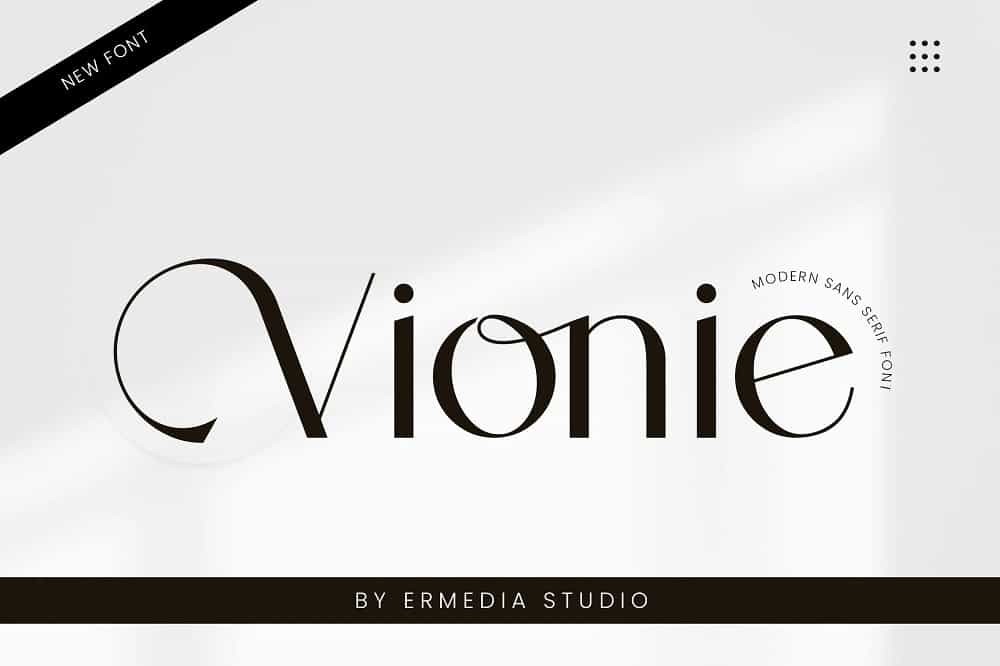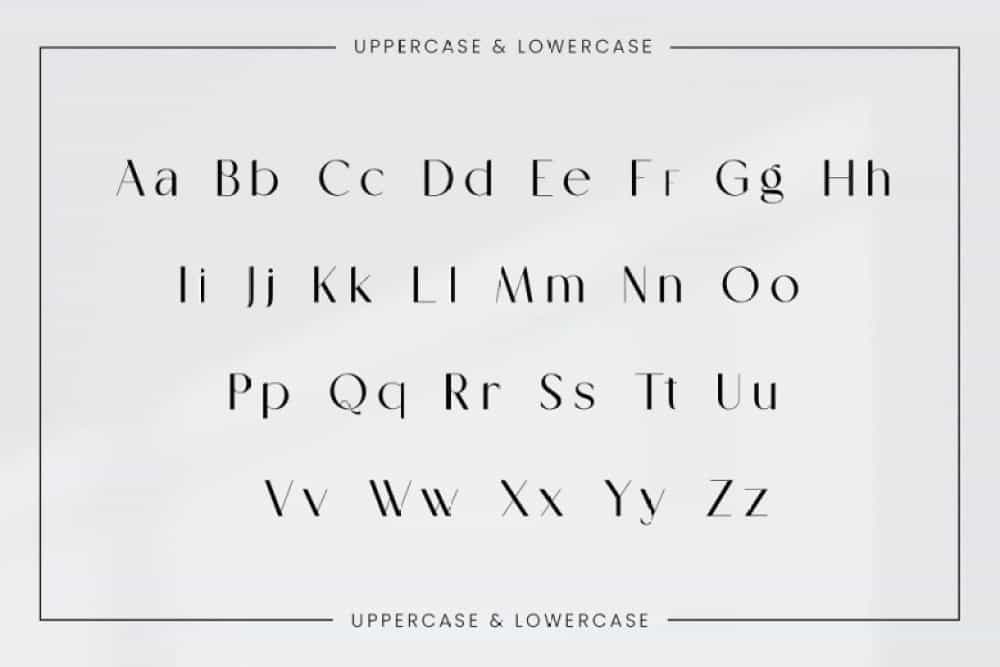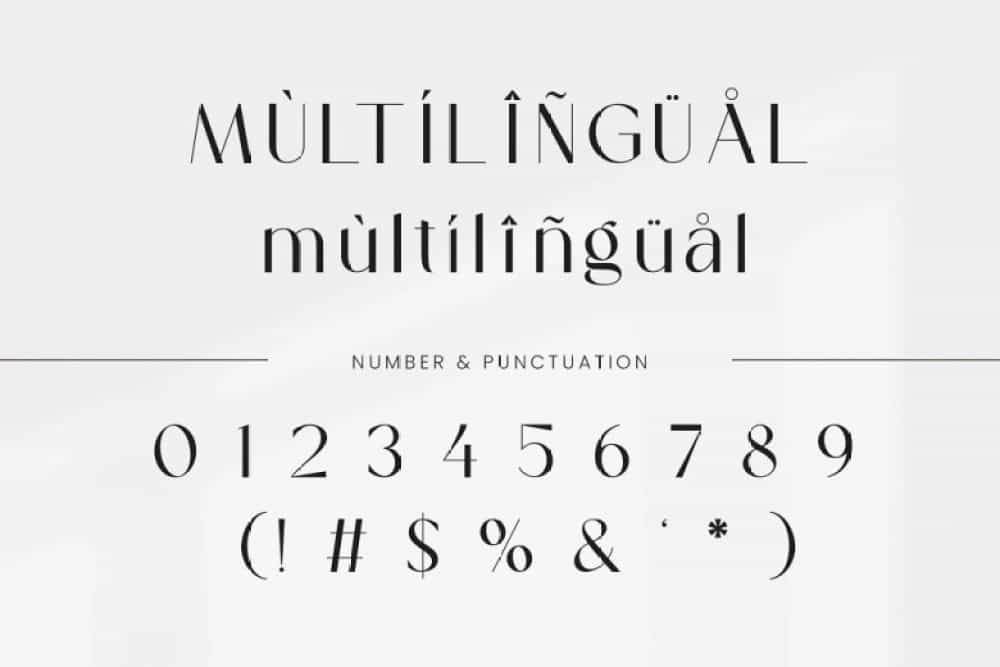
Vionie is a modern sans serif font. She has a beautiful character indeed. Ideal for the use with the invitation card designs, corporate logos, movie titles, movie names, business cards, book titles, brand names and many more. This makes this font very enjoyable to use and a great addition to any project that this font will adorn.